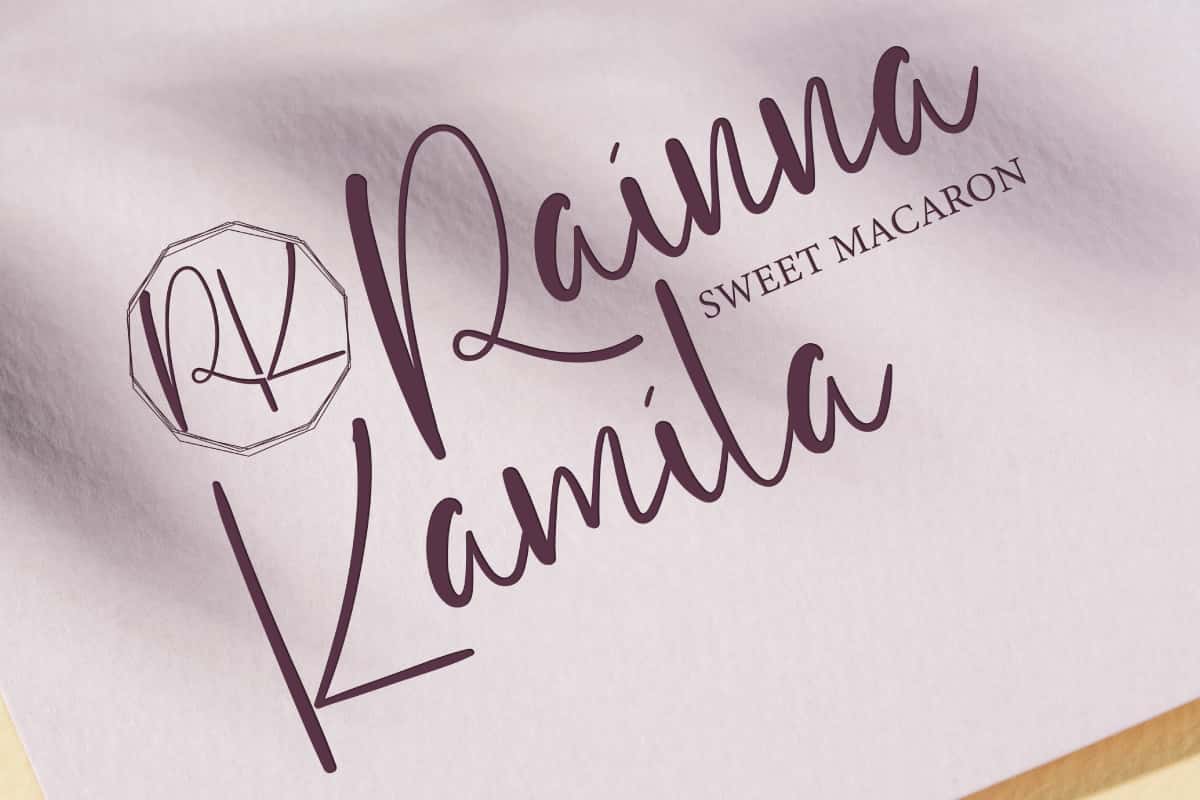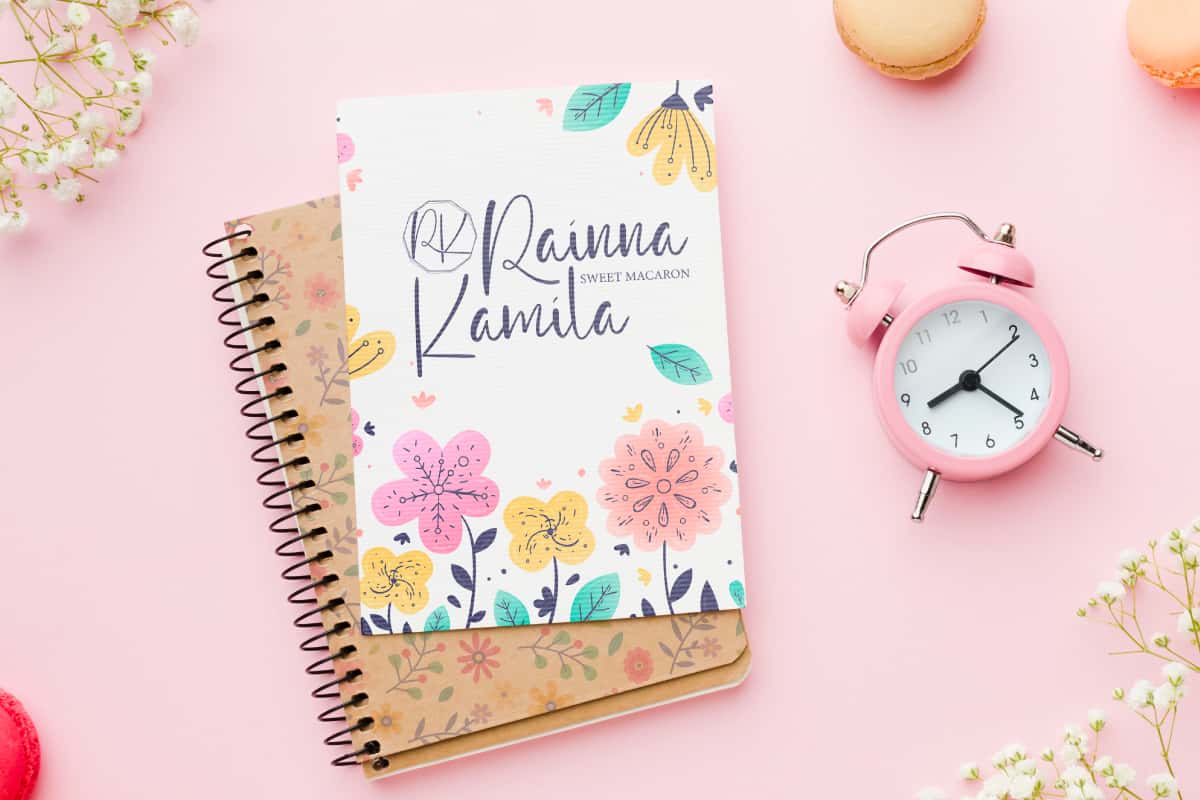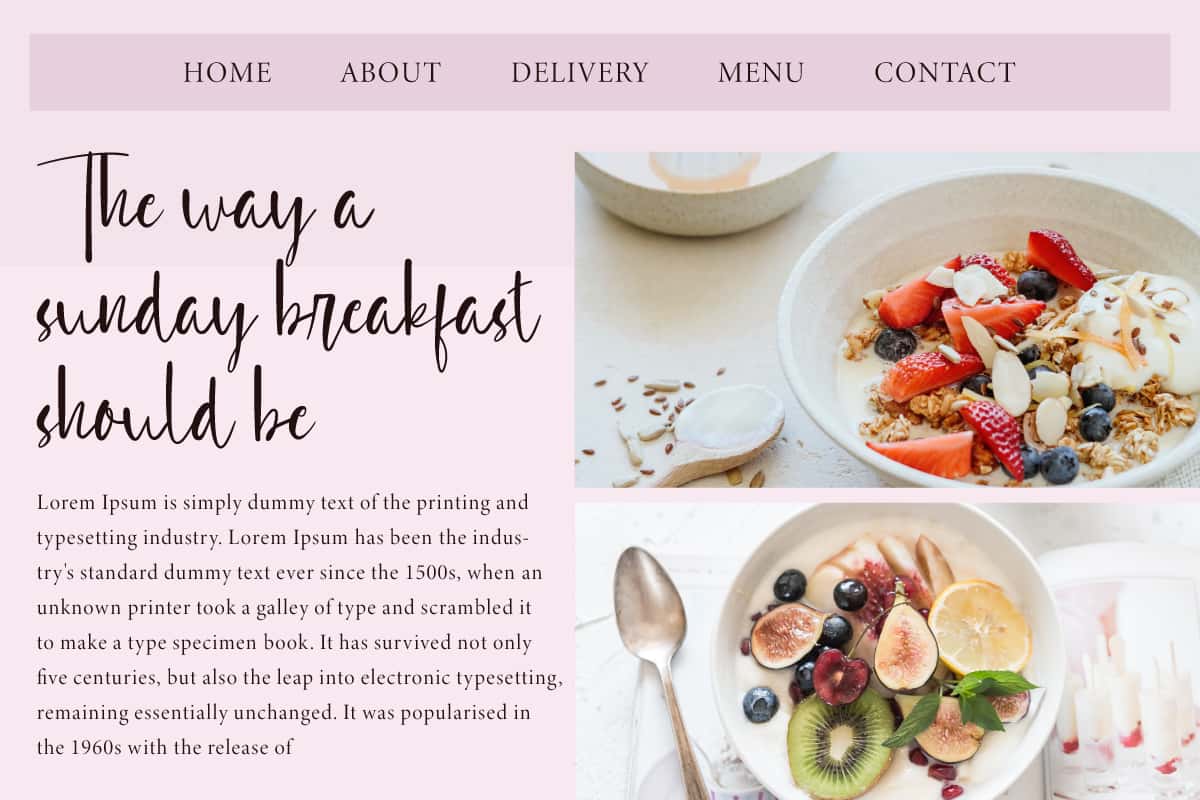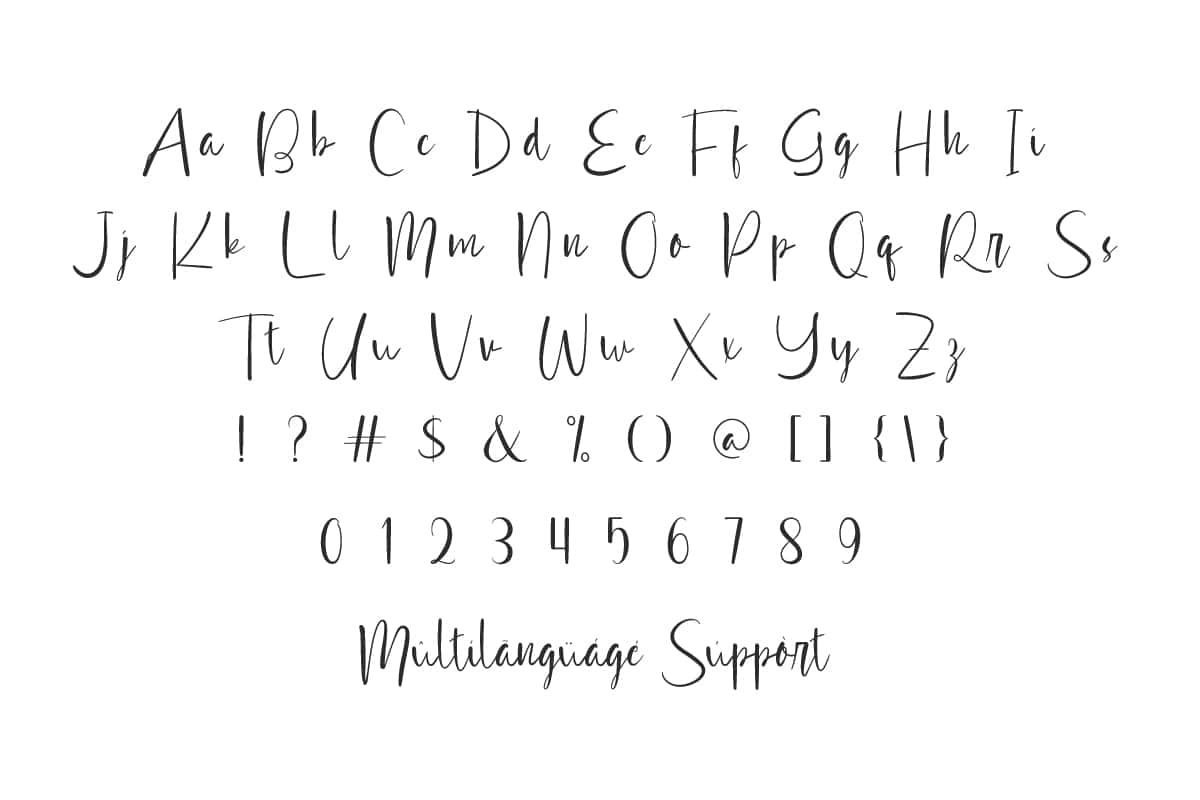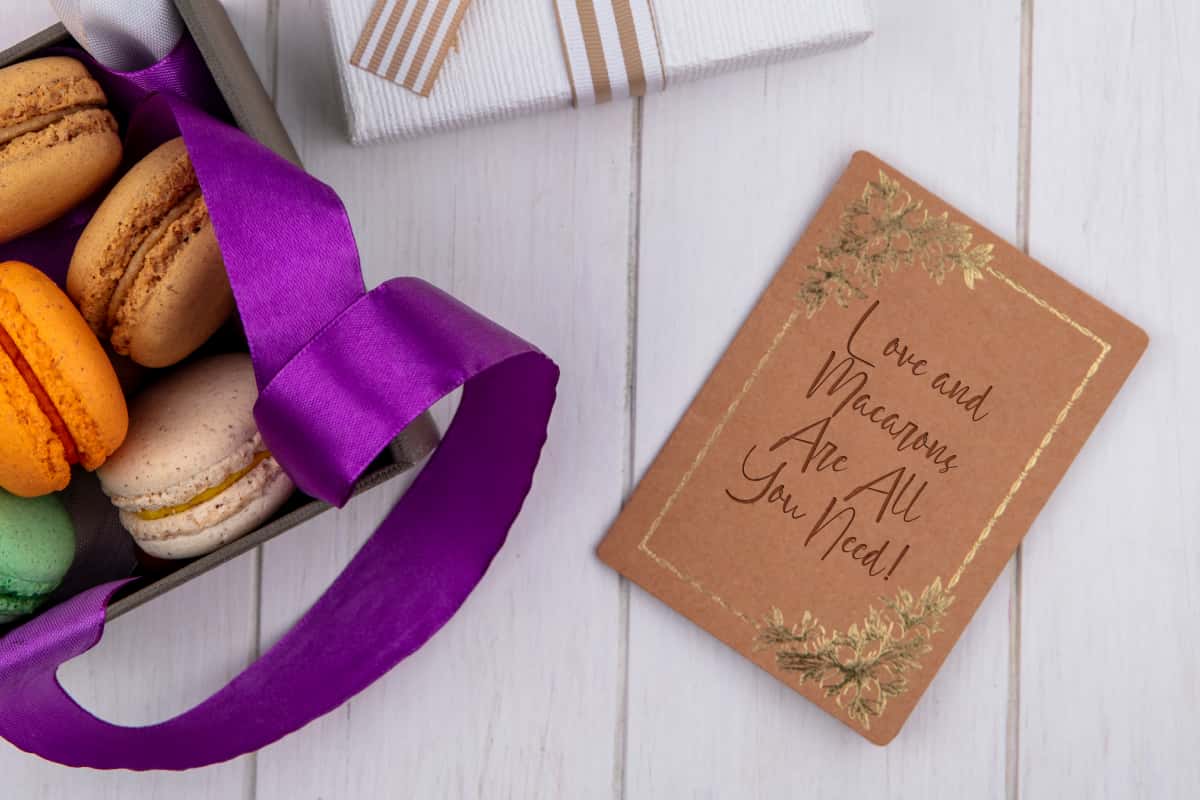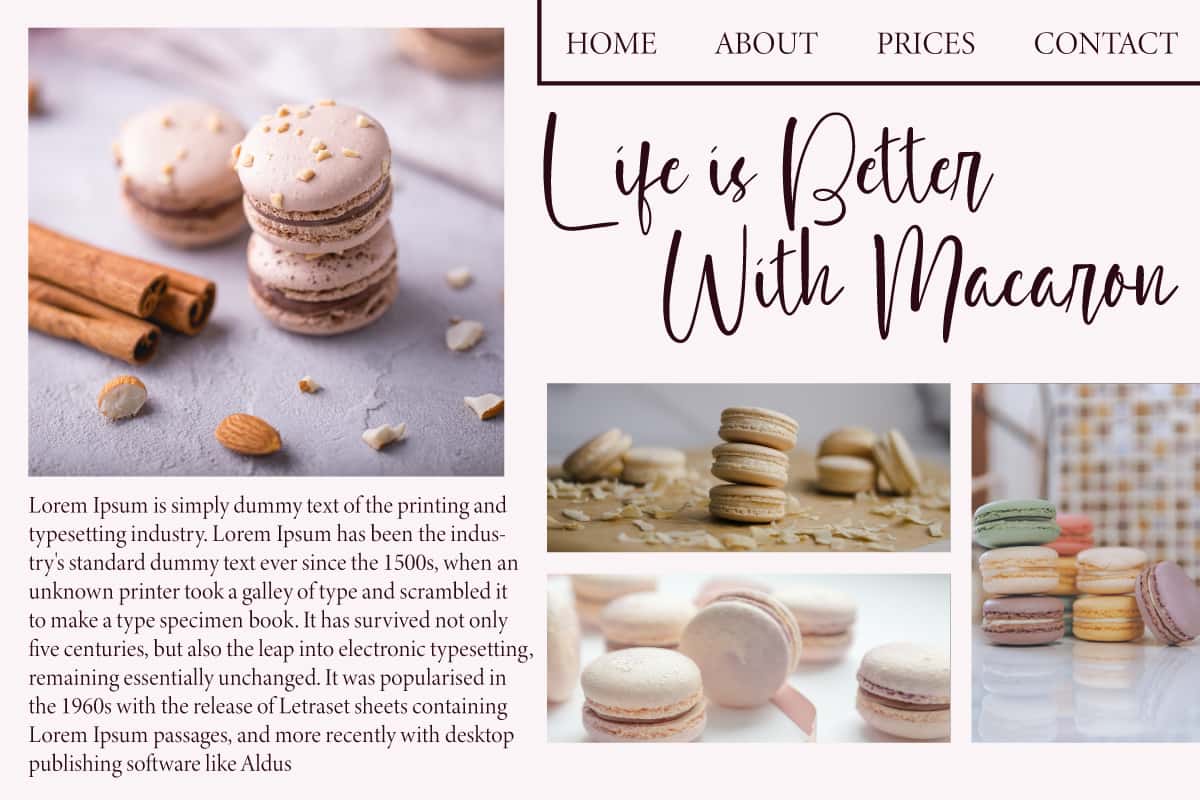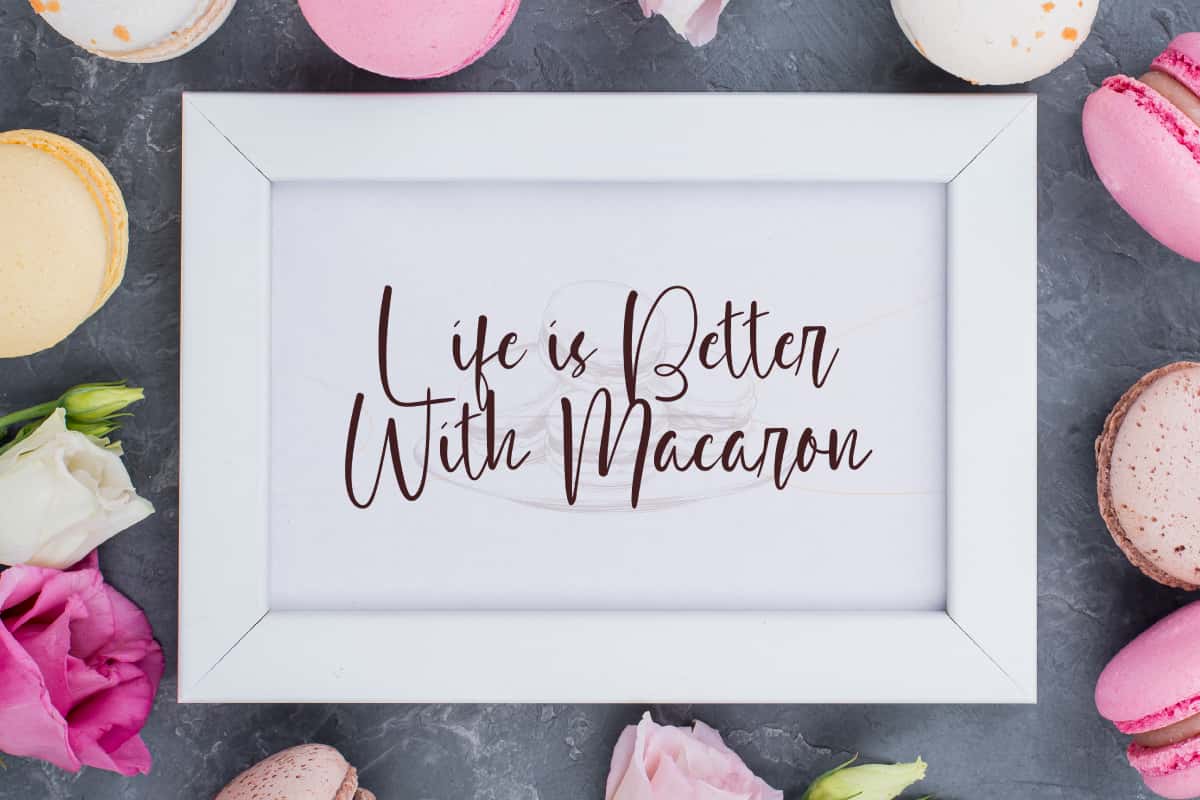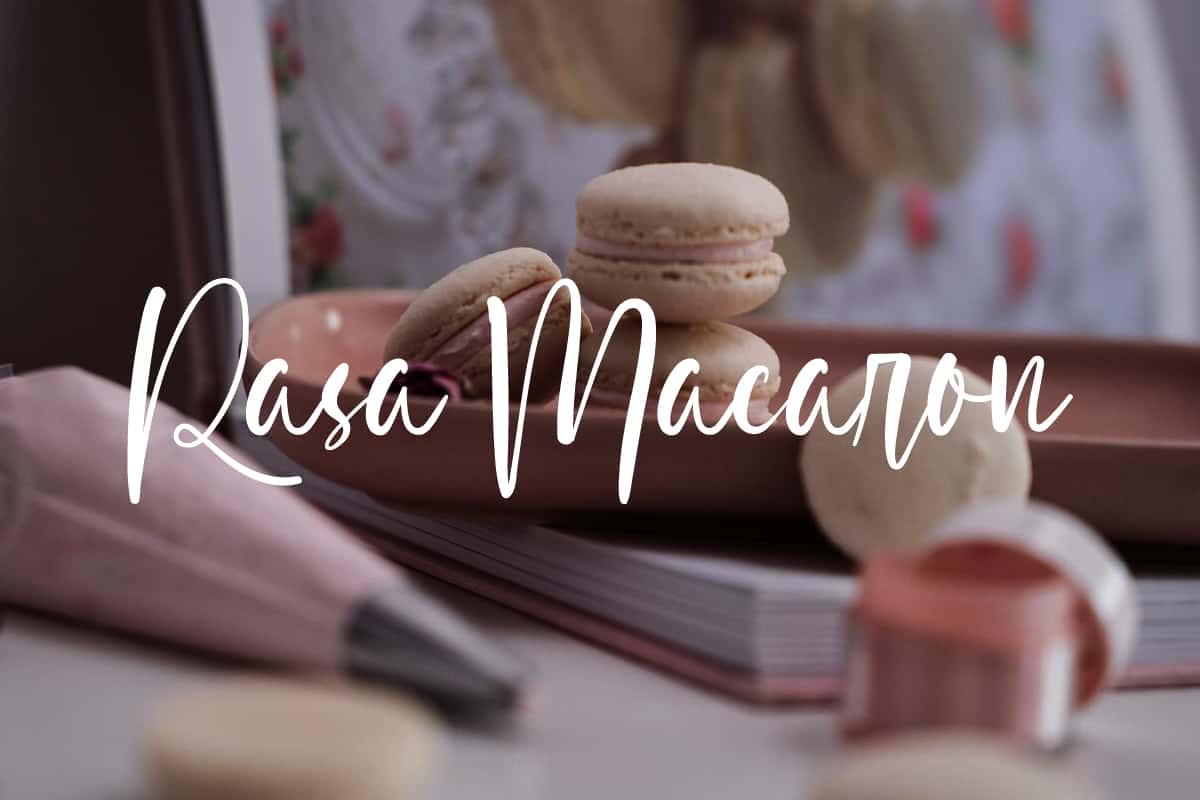
Rasa Macaron Font is a sweet handwritten font combined with beautiful calligraphy style. Try to combine this font into any design or project you create.
Rasa Macaron Font is a sweet handwritten font combined with a beautiful calligraphy style. The natural-looking curves make this font look attractive. This font also brings a soft playfulness to your projects, such as blogs, brand logo, business card, cover, flyer, greeting card, headers, headline, label, logo, menu, poster, quotes, text art on background, title, watermarks, website, and much more!
Rasa Macaron Font comes with a full set of Uppercase and Lowercase Basic Characters, Number, Punctuation, and Symbols. Each letter becomes a brushstroke, and each word a canvas of authenticity, imbuing your designs with a distinct personality that goes beyond the ordinary. Use this for your business industry such as advertising, bakery & pastry, cafes, handicraft, printing, publishing, sweetshop, etc.